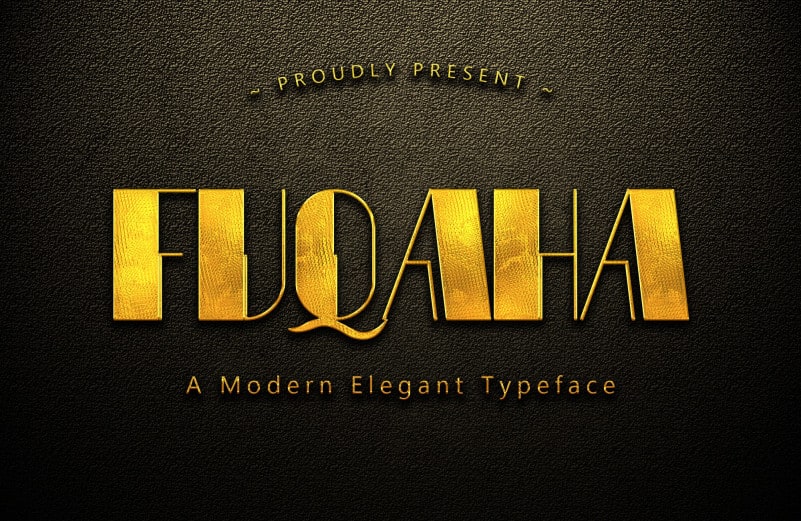
Fuqaha Display Font
Fuqaha Display Font is a bold and strong display typeface. Made from font designer named Alfatih Std. It’s font which helping to create futuristic hi-tech atmosphere and style. It is good looking as header and as text both. Use it in your projects in such areas as robots&androids, hi-tech, future, virtual reality, space, army, games and many others.